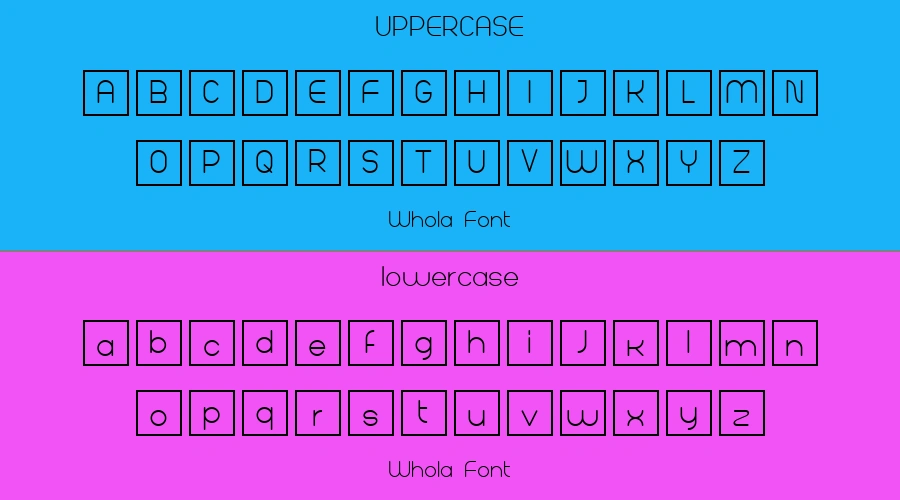
About Whola Font
Designed with precision, Whola Font merges structural clarity with professional standards in every character. This versatility makes it particularly effective for brand identities, where durability and uniqueness directly impact communication quality. Each letterform demonstrates meticulous craftsmanship.
Technical excellence shines through elements like geometric precision and ordinals, enhancing typographic versatility. In campaign headers settings, Whola Font proves its worth through superior small cap rendering. The thoughtful execution of stroke modulation and engineering heritage ensures professional results.